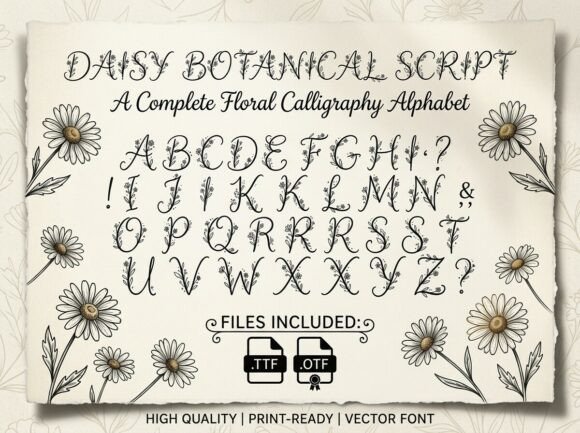
Bringing Springtime Charm to Your Typography: The Beauty of Daisy Font
Imagine strolling through a lush garden on a warm spring morning, surrounded by vibrant blooms and the sweet scent of daisies. Now, imagine capturing that serene and romantic essence in your typography. With Daisy Botanical Script, a stunning calligraphy alphabet, you can bring the delicate charm of a spring garden to your designs. This exquisite font is meticulously crafted to transport you to a whimsical world of elegance and natural beauty.
A Masterpiece of Hand-Drawn Elegance
Daisy Botanical Script is a true masterpiece, where every letter is a hand-drawn work of art. Each character is intricately entwined with elegant climbing vines, petite daisy blossoms, and organic leaf accents, creating a sense of movement and fluidity. The level of detail is remarkable, making this font perfect for designs that require a touch of sophistication and refinement.
Cottagecore and Romantic Vintage Aesthetics
Daisy Botanical Script perfectly captures the essence of “cottagecore” and romantic vintage aesthetics. This font is a love letter to the charm of traditional English gardens and the nostalgia of a bygone era. Its whimsical and feminine charm will transport your designs to a world of warmth and coziness, evoking feelings of comfort and serenity.
Daisy Botanical Script is an incredibly versatile font, suitable for a wide range of design applications. Here are some of the perfect uses for this beautiful font:
- Wedding Invitations: Add a touch of romance and whimsy to your wedding invitations, save-the-dates, and other stationery.
- Artisanal Botanical Branding: Bring a sense of natural elegance to your brand identity, packaging, and marketing materials.
- Eco-Friendly Packaging: Convey your brand’s commitment to sustainability and eco-friendliness with a font that exudes organic charm.
- Lifestyle Editorial Layouts: Add a touch of sophistication and refinement to your editorial designs, such as magazine covers, articles, and blog posts.
- Boutique Florist Designs: Help a boutique florist or gardening business stand out with a font that captures the beauty of nature.
- Dreamy Book Covers: Create a captivating book cover that transports readers to a world of romance and wonder.
A Natural, Soulful Touch
Daisy Botanical Script offers a natural, soulful touch that feels genuinely handcrafted. This font is perfect for designers and crafters who want to infuse their work with a sense of personality and character. The hand-drawn elements and organic accents create a sense of warmth and humanity, making your designs feel more approachable and relatable.
Why Choose Daisy Font?
With so many fonts available, why choose Daisy Botanical Script? Here are just a few reasons why this font stands out:
- Unique and Exclusive: Daisy Botanical Script is a one-of-a-kind font that will set your designs apart from the rest.
- Highly Legible: Despite its intricate details, this font remains highly legible, making it perfect for body text and headlines.
- Scalable: Daisy Botanical Script is designed to scale, ensuring that it looks beautiful and elegant at any size.
Daisy Botanical Script is a stunning calligraphy alphabet that brings the delicate charm of a spring garden to your typography. With its hand-drawn elegance, organic accents, and whimsical charm, this font is perfect for designers and crafters who want to infuse their work with a sense of personality and character. Whether you’re designing for a wedding, a boutique florist, or a lifestyle brand, Daisy Botanical Script is the definitive choice for adding a touch of natural beauty and romance to your designs.